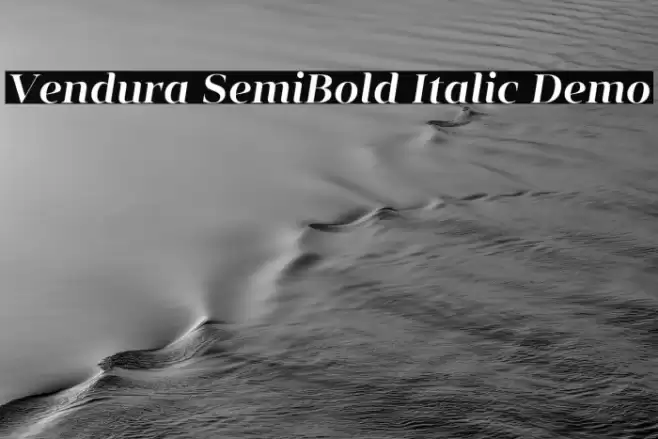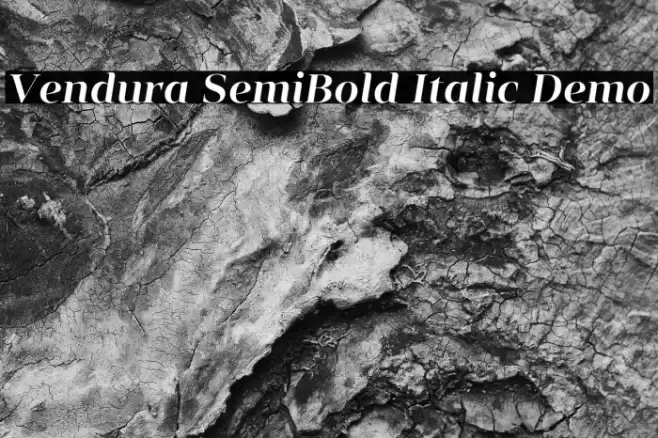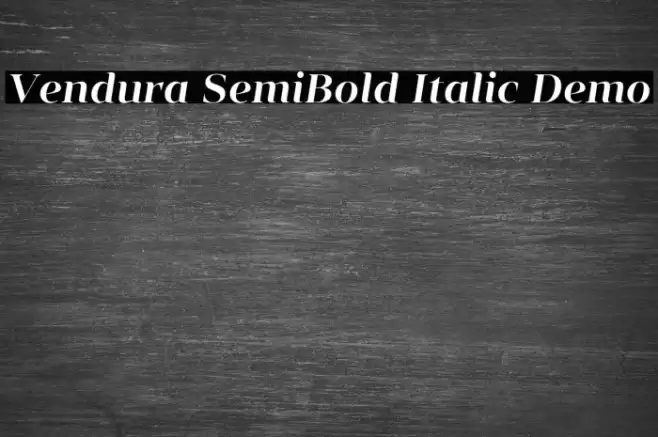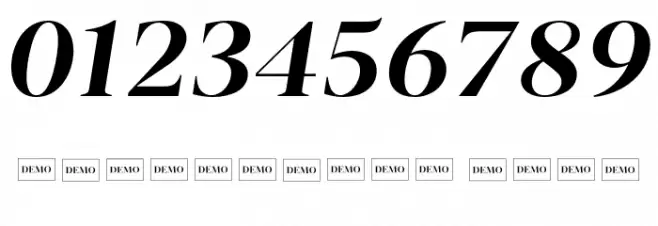
Vendura SemiBold Italic Demo Font
Vendura SemiBold Italic Demo Description
This font exhibits a refined and elegant style, characterized by its semi-bold weight and italicized form. The letters have a classic serif design, with smooth curves and sharp edges that convey a sense of sophistication and grace. The uppercase letters stand tall with a slight slant, while the lowercase letters maintain a consistent flow, enhancing readability. The numerals are well-proportioned, matching the overall aesthetic of the alphabet. This font is versatile, suitable for both formal and creative applications, offering a balance between tradition and modernity.
A semi-bold italic serif font with elegant curves and sharp edges from Uncategorized fonts.
- Proposed Projects: Ideal for branding, editorial design, book covers, and elegant invitations.
- Overall Style: Classic